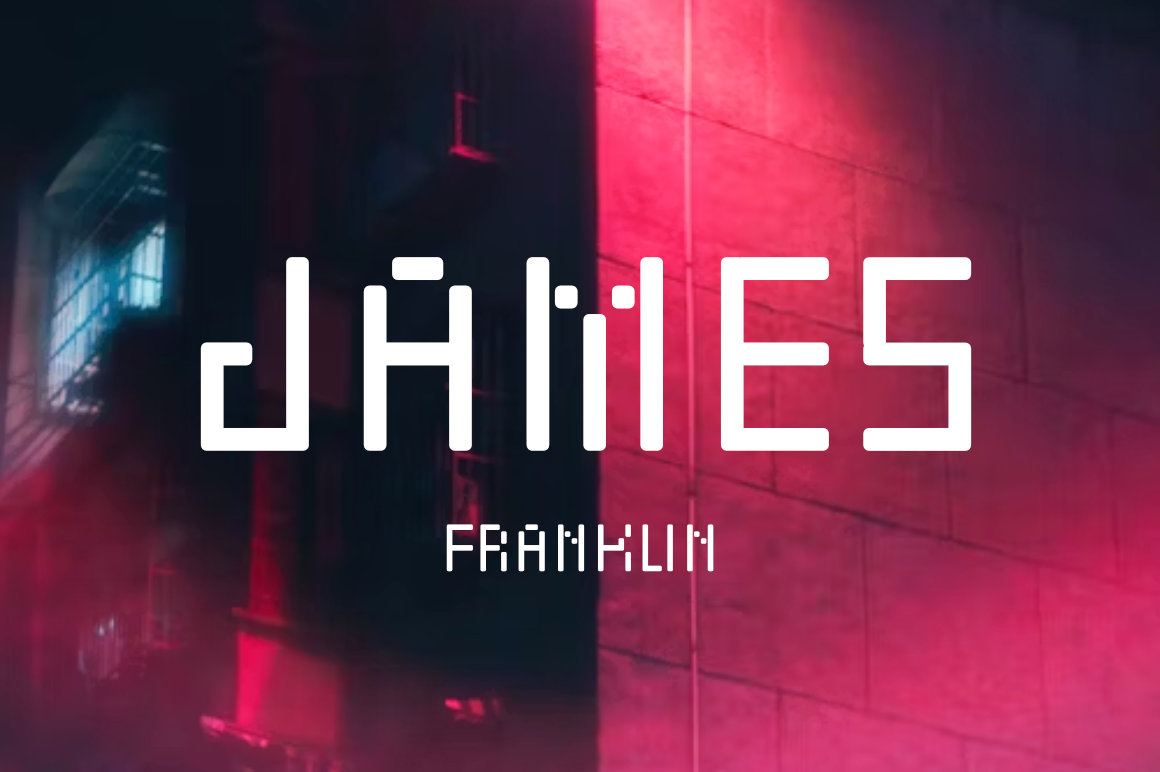
Zerpixl ARC Pixel Modern Font
In the ever-evolving world of digital design, the quest for the perfect pixel font has been a relentless pursuit. Pixel Sans Modern is the culmination of this quest, a font that seamlessly blends the nostalgic charm of pixel art with the sleek sophistication of modern design..
Versatile Styles: Regular and Italic options for diverse design needs.